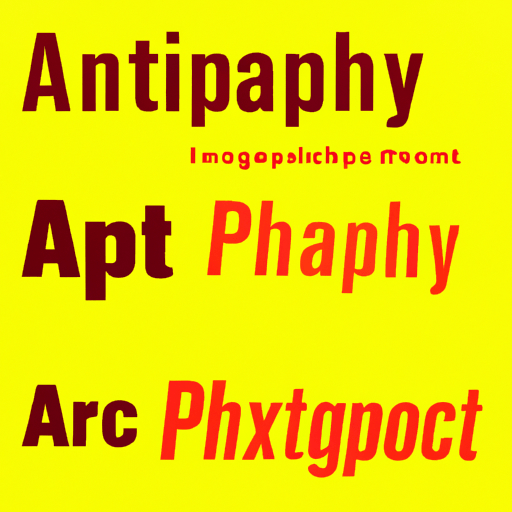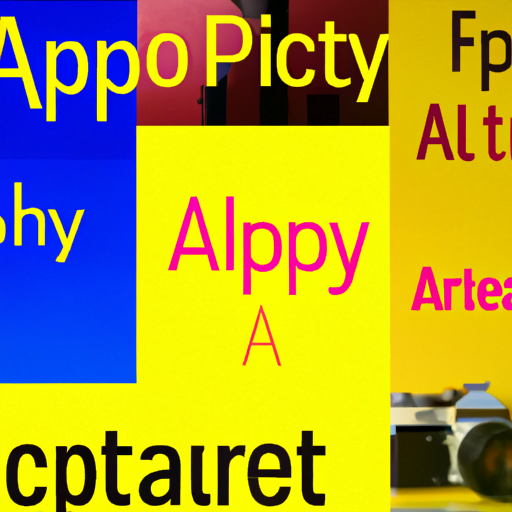
The Art of Typography: Mixing Fonts and Styles for Impact
Typography is more than just selecting a font for your text. It is an art form that can greatly impact the overall design and message of a piece. When used effectively, mixing fonts and styles can create a visually appealing and engaging experience for the reader. In this article, we will explore the art of typography and how to effectively mix fonts and styles for maximum impact.
The Power of Typography
Typography plays a crucial role in communication. It can evoke emotions, convey information, and enhance the overall aesthetic appeal of a design. The right combination of fonts and styles can make a piece stand out and leave a lasting impression on the reader.
According to a study conducted by the Massachusetts Institute of Technology (MIT), typography significantly affects how people perceive and understand written information. The study found that the legibility and readability of text can influence comprehension and retention. Therefore, it is essential to carefully consider the typography choices when designing any form of communication.
The Importance of Font Selection
Fonts are the building blocks of typography. They come in various styles, weights, and sizes, each with its own unique characteristics. When selecting fonts, it is important to consider the purpose and tone of the design.
For example, if you are designing a formal invitation, a classic serif font like Times New Roman or Baskerville may be appropriate. On the other hand, if you are creating a modern and edgy poster, a sans-serif font like Helvetica or Futura may be more suitable.
It is also important to consider the readability of the font. Some fonts may look visually appealing but can be difficult to read in longer passages of text. Always test the legibility of a font at different sizes and weights to ensure it is suitable for the intended purpose.
The Art of Mixing Fonts
Mixing fonts can add depth and visual interest to a design. However, it is important to do so with intention and purpose. Here are some tips for effectively mixing fonts:
- Contrast: Choose fonts that have contrasting styles to create visual interest. For example, pairing a bold and heavy font with a light and delicate font can create a dynamic composition.
- Hierarchy: Use different fonts to establish a visual hierarchy and guide the reader's attention. For instance, you can use a bold font for headings and a lighter font for body text.
- Consistency: While it is important to mix fonts, it is equally important to maintain consistency throughout the design. Stick to a limited number of fonts to avoid overwhelming the reader.
- Compatibility: Ensure that the fonts you choose work well together. Some fonts may clash or create visual discord when used together. Experiment with different combinations to find the right balance.
Case Studies: Successful Font Mixes
Let's take a look at some real-world examples of successful font mixes:
1. Apple
Apple is known for its sleek and modern design aesthetic. They often mix fonts to create a sense of sophistication and elegance. For instance, they combine the sans-serif font San Francisco with the serif font Georgia to create a harmonious balance between modernity and tradition.
2. Vogue
Vogue, a renowned fashion magazine, uses font mixing to convey a sense of luxury and glamour. They often pair a bold and decorative font for the masthead with a clean and elegant font for the body text. This combination creates a visually striking and cohesive design.
3. Airbnb
Airbnb, a popular online marketplace for accommodations, uses font mixing to establish a friendly and approachable brand image. They combine a rounded sans-serif font for headings with a simple and legible font for body text. This combination creates a sense of warmth and accessibility.
The Role of Styles
In addition to mixing fonts, utilizing different styles within a font family can also enhance the visual impact of typography. Styles such as bold, italic, and underline can be used to emphasize certain words or phrases, create contrast, and guide the reader's attention.
For example, using bold for headings and italic for quotes can help differentiate them from the rest of the text. Underlining key points can draw attention and make them more memorable.
Summary
Typography is a powerful tool that can greatly impact the effectiveness of a design. By carefully selecting and mixing fonts and styles, designers can create visually appealing and engaging compositions. Remember to consider the purpose and tone of the design, choose fonts that complement each other, and utilize styles to guide the reader's attention. With the art of typography, you can elevate your designs and leave a lasting impression on your audience.